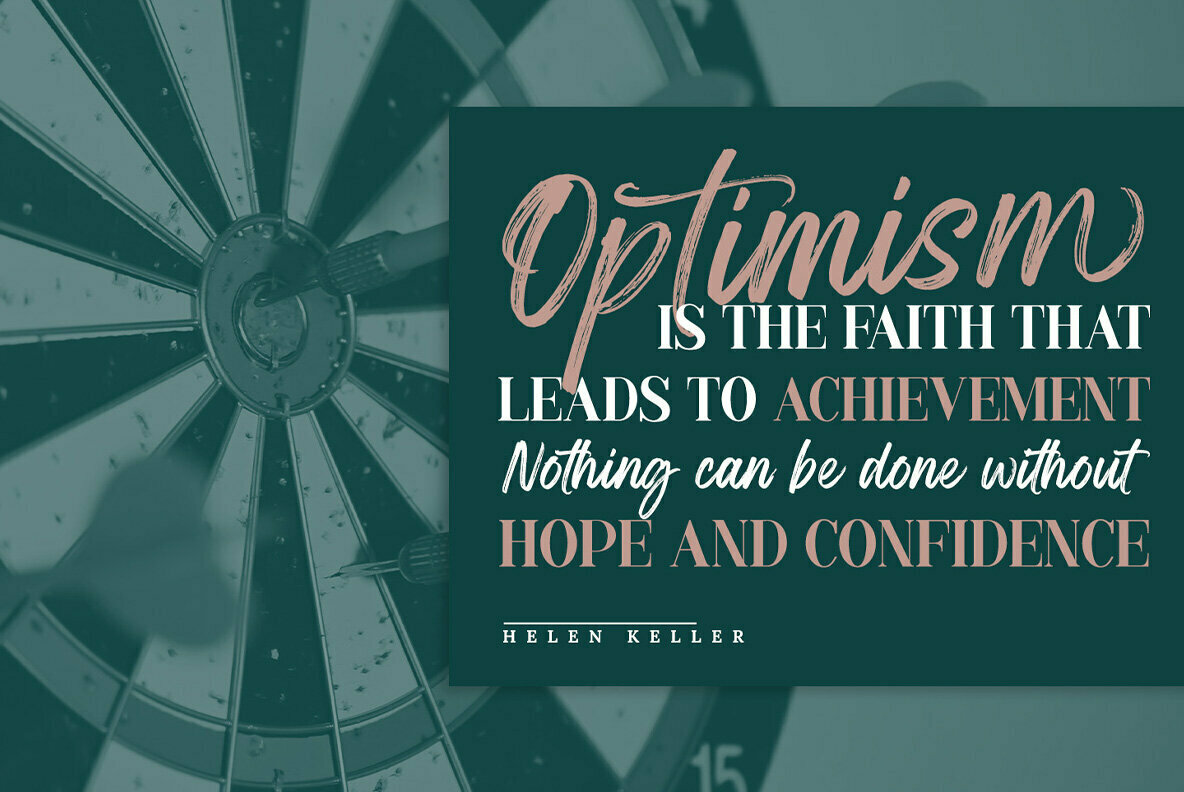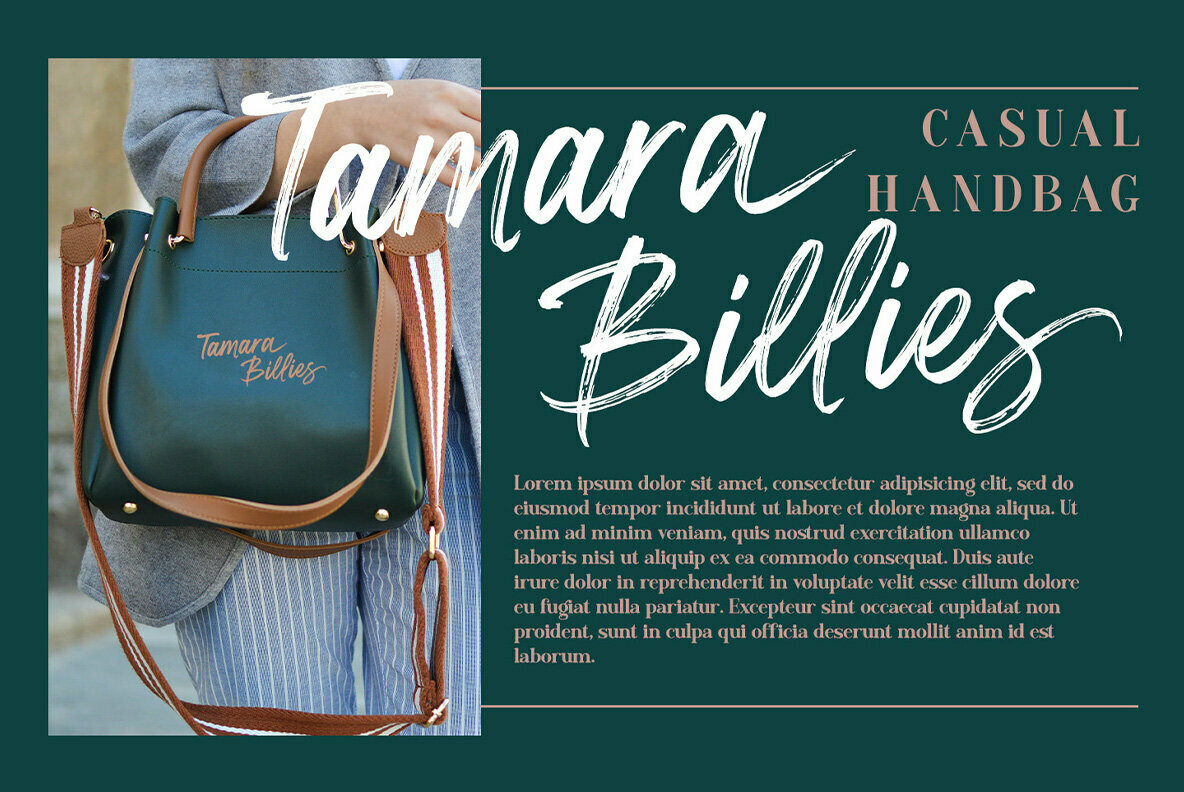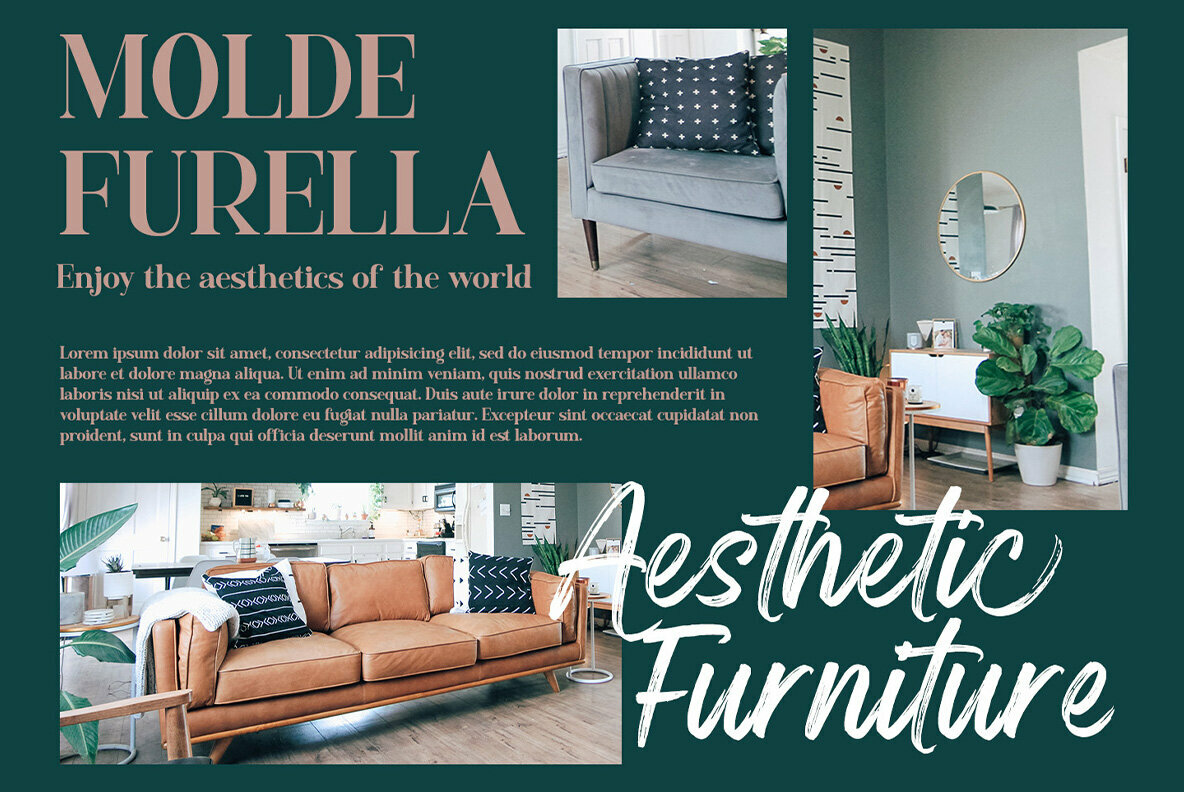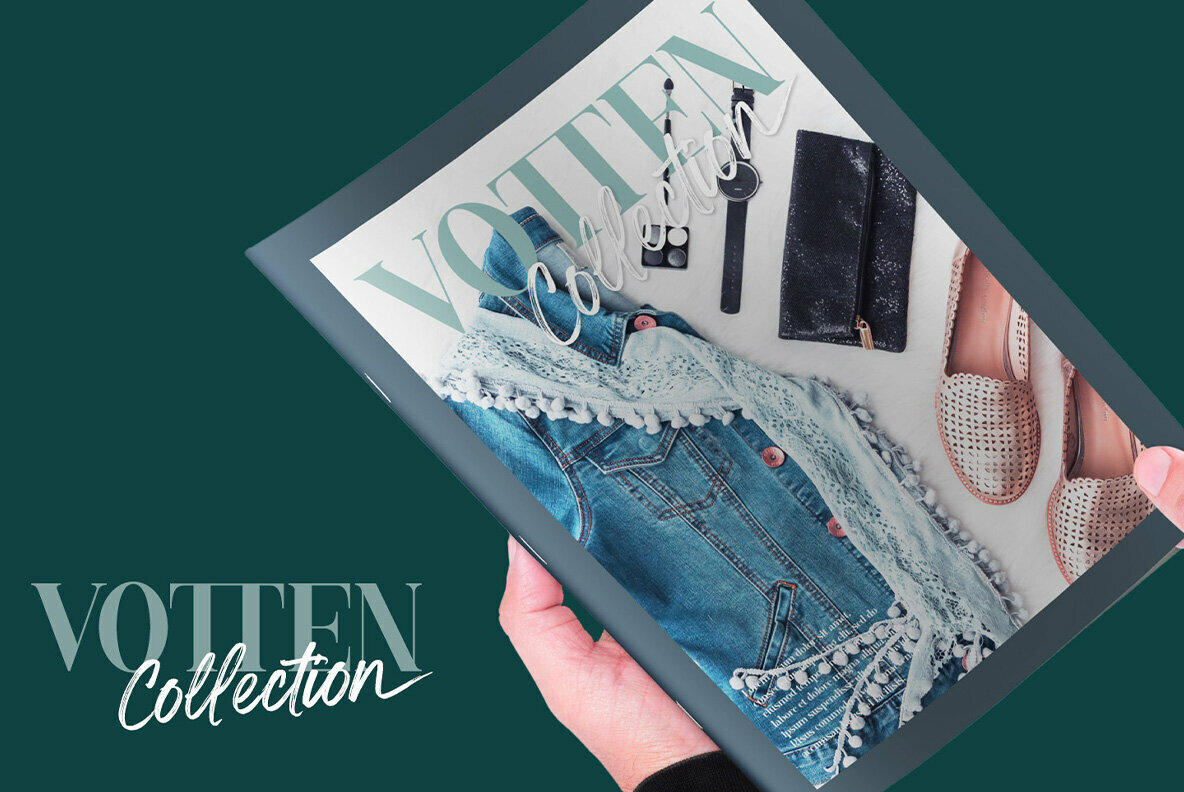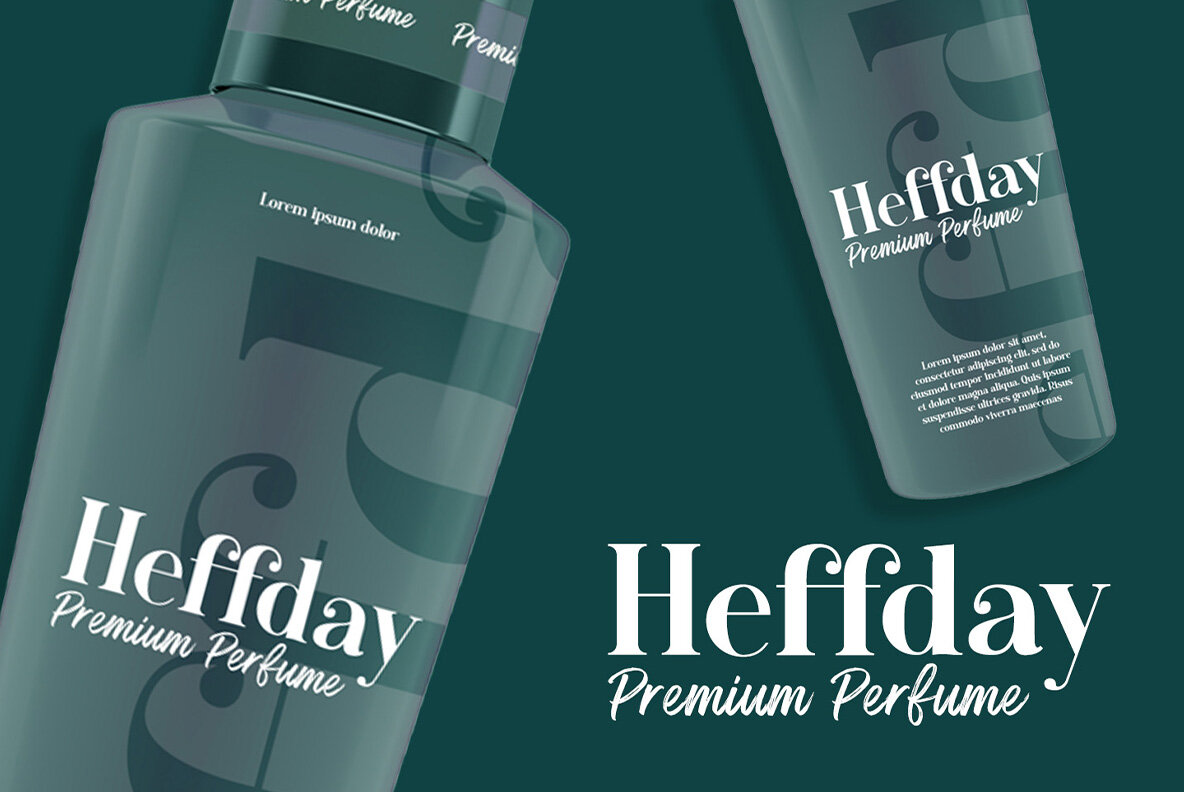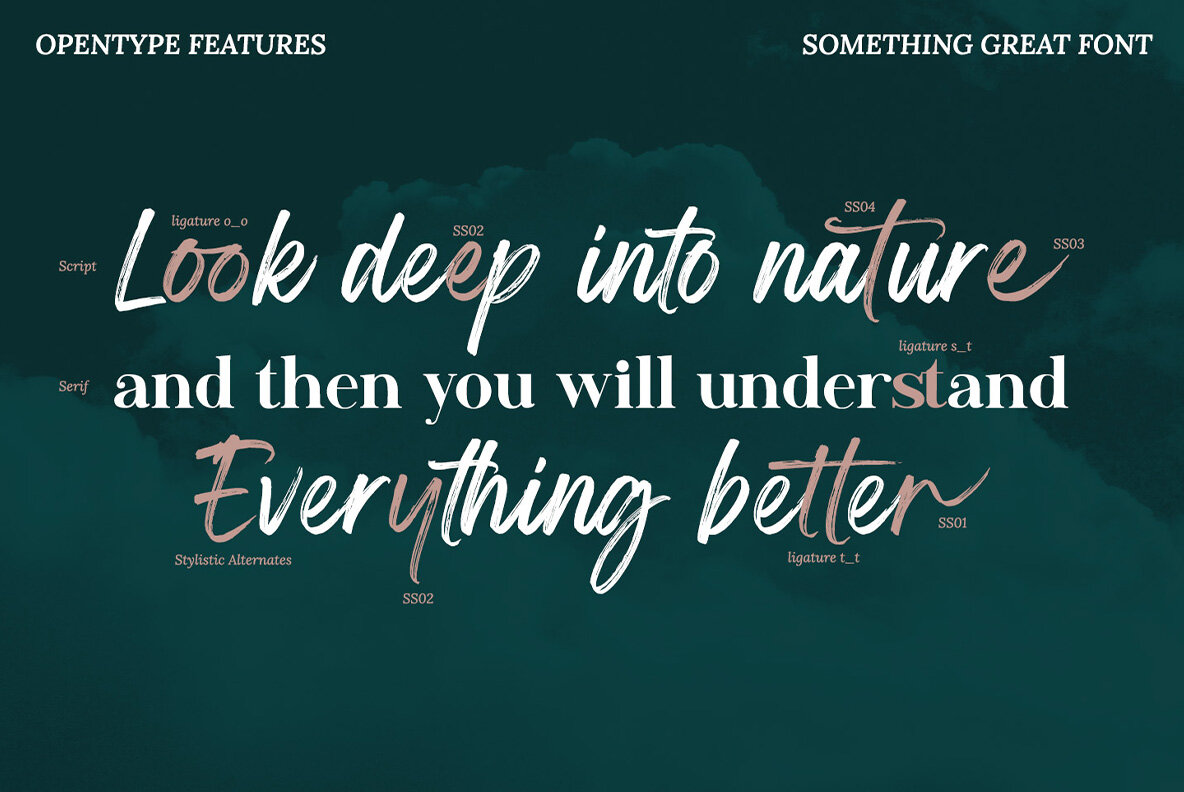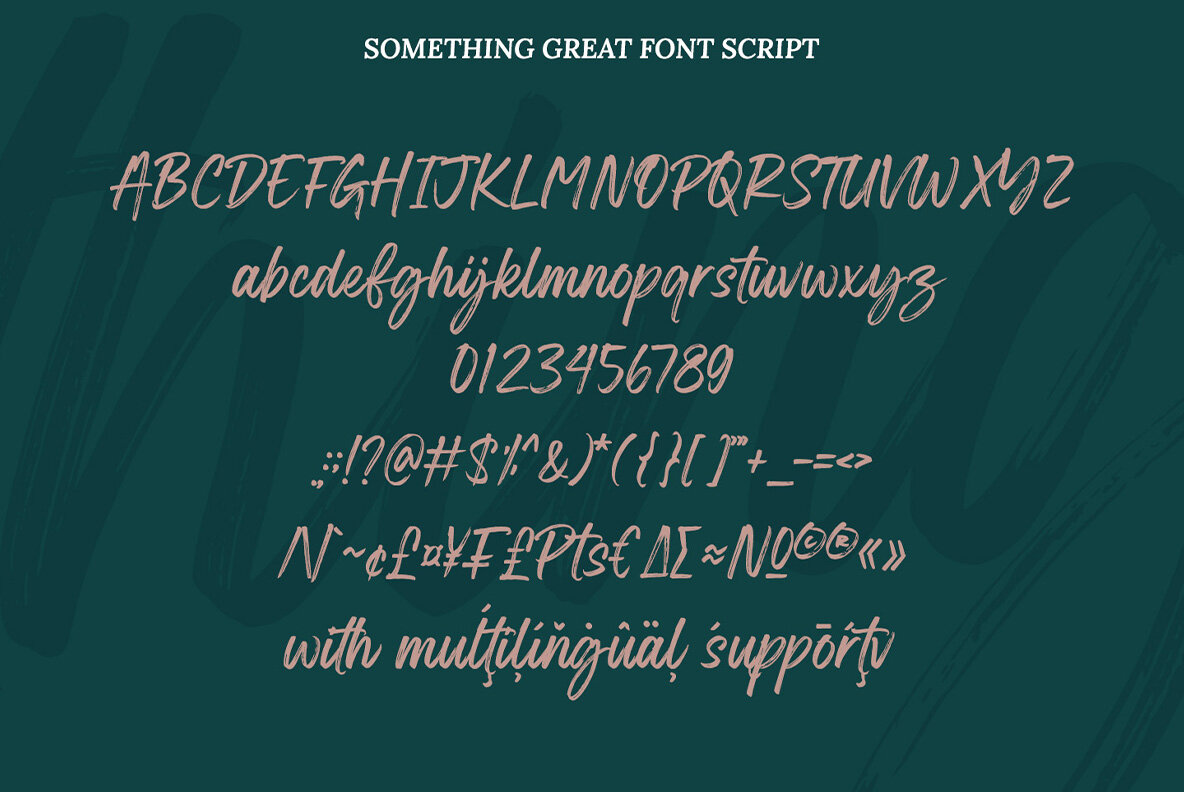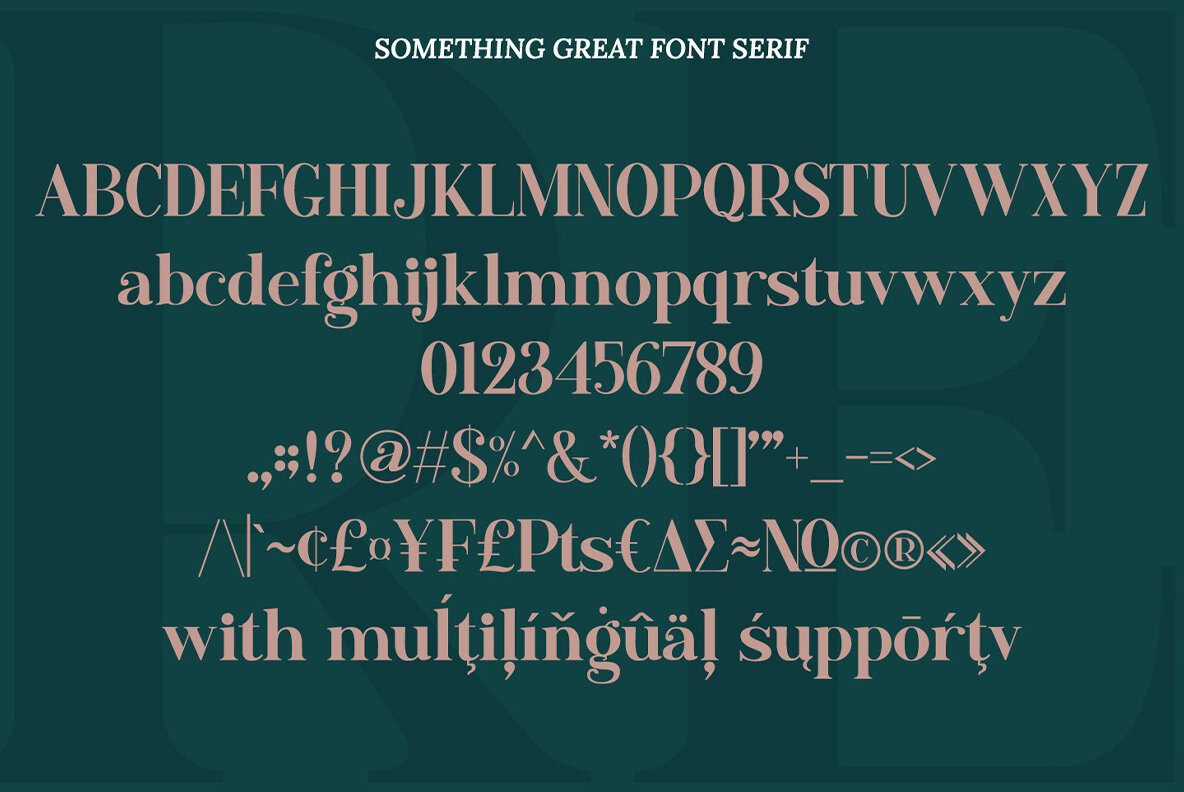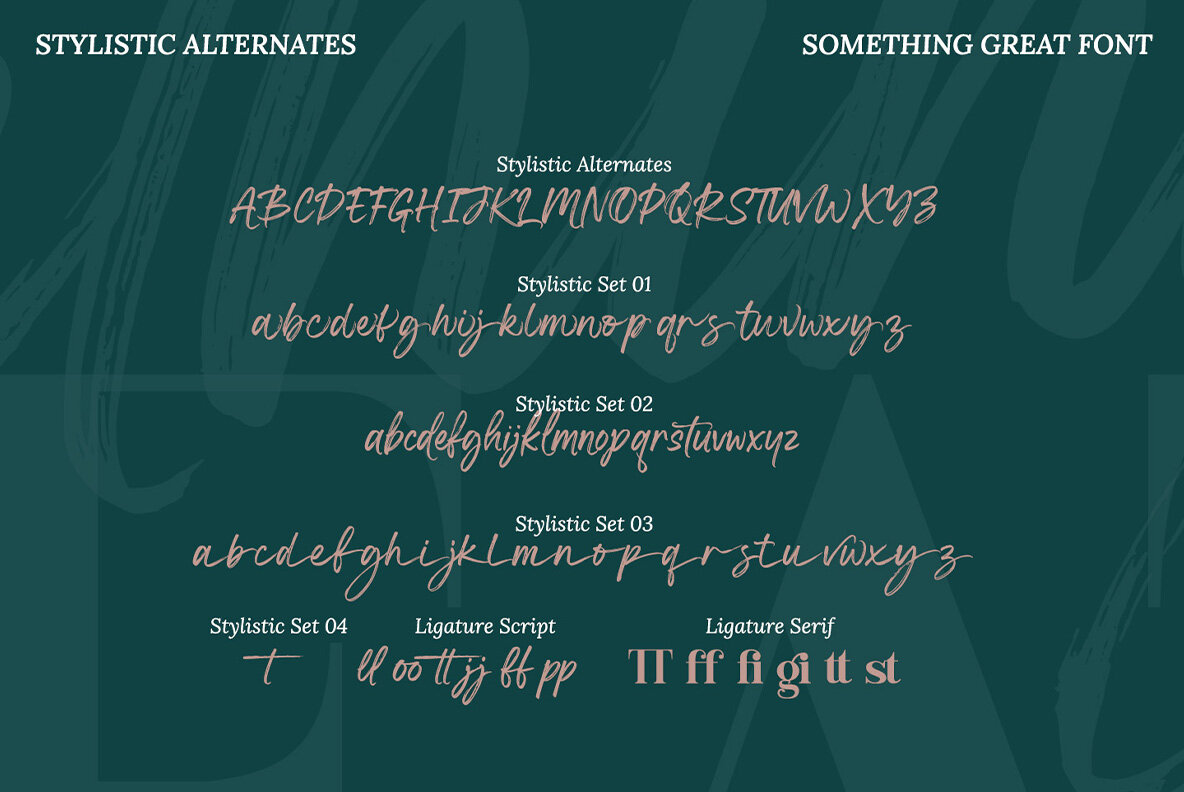
Something Great Font
The font landscape undergoes a graceful transformation with the Something Great font duo. Embodying a fusion of classic script sophistication and modern serif clarity, these typefaces offer a unique versatility for various design endeavors. The script font exudes elegance, ideal for artistic touches, while the serif font brings a contemporary flair, perfect for enhancing readability and style. Each font in this duo stands out in its own right, allowing for creative combinations or individual use depending on your project requirements. Whether you seek to elevate a presentation, add flair to branding, compose compelling quotes, craft invitations, or enhance website illustrations, Something Great delivers exceptional results. Features:Something Great Font Duo: Elegance Meets Modernity